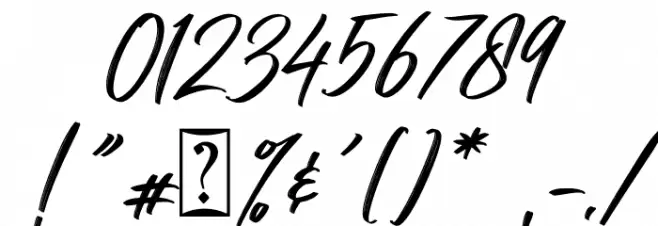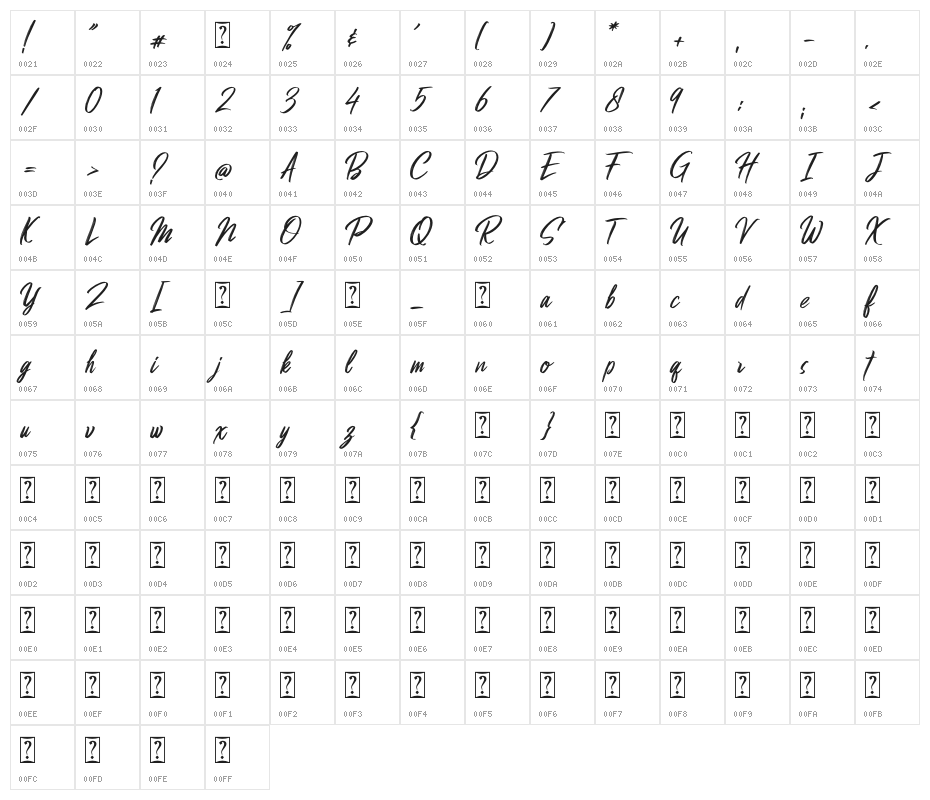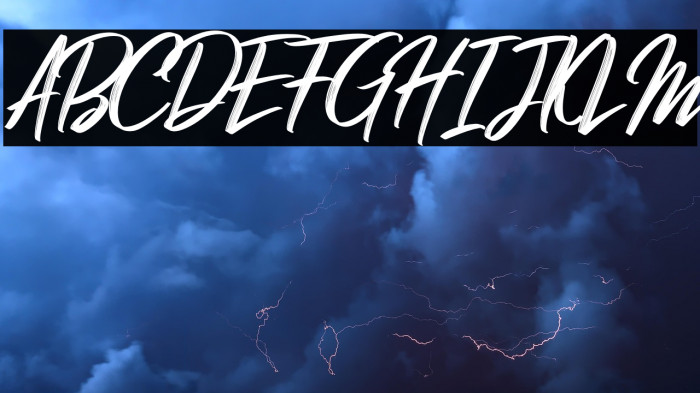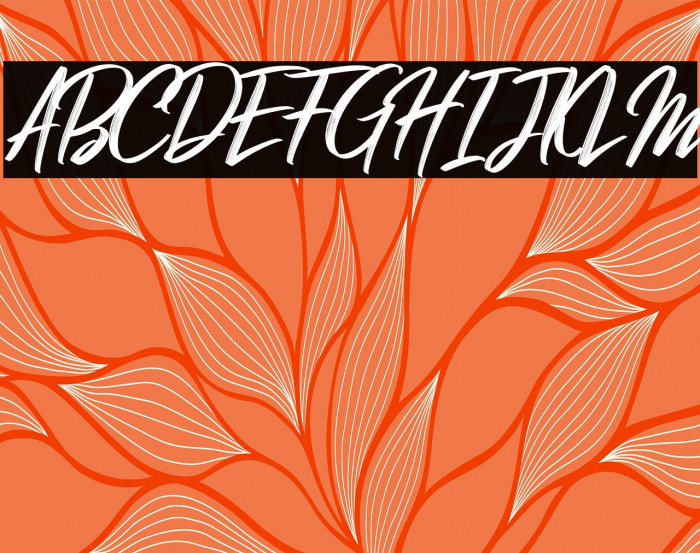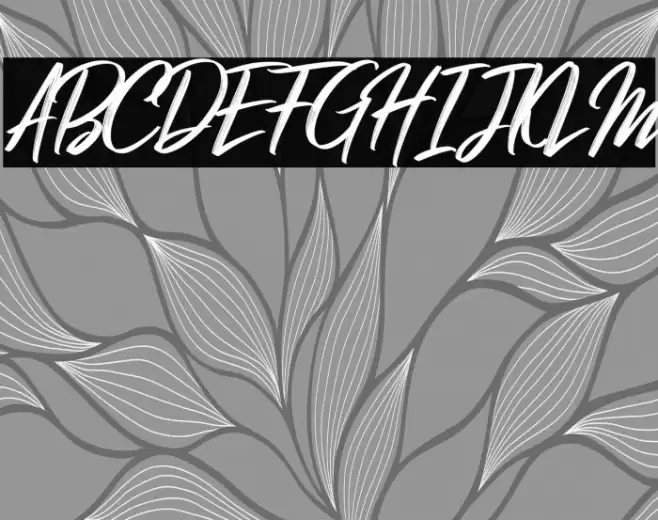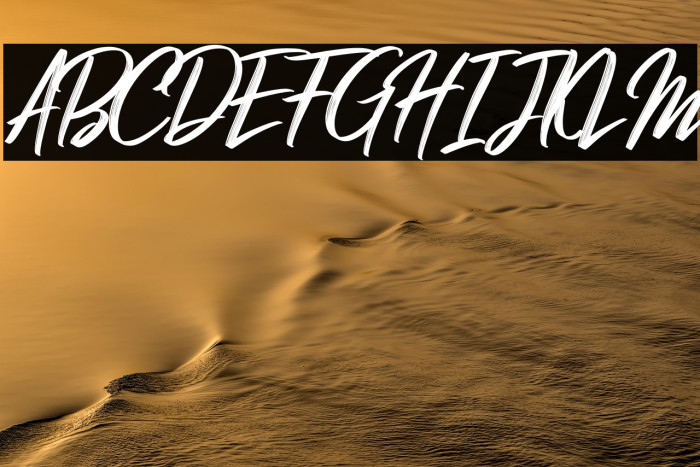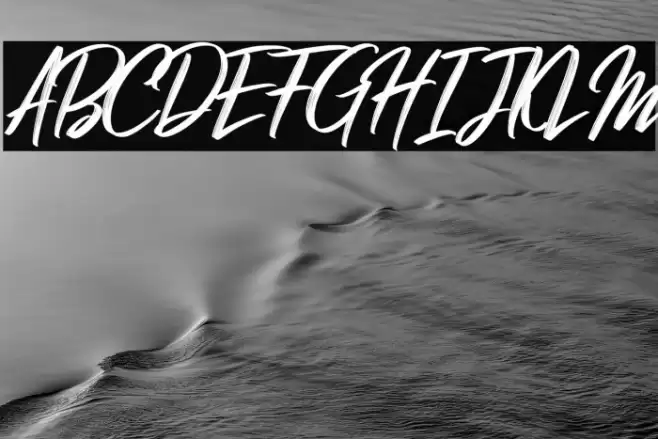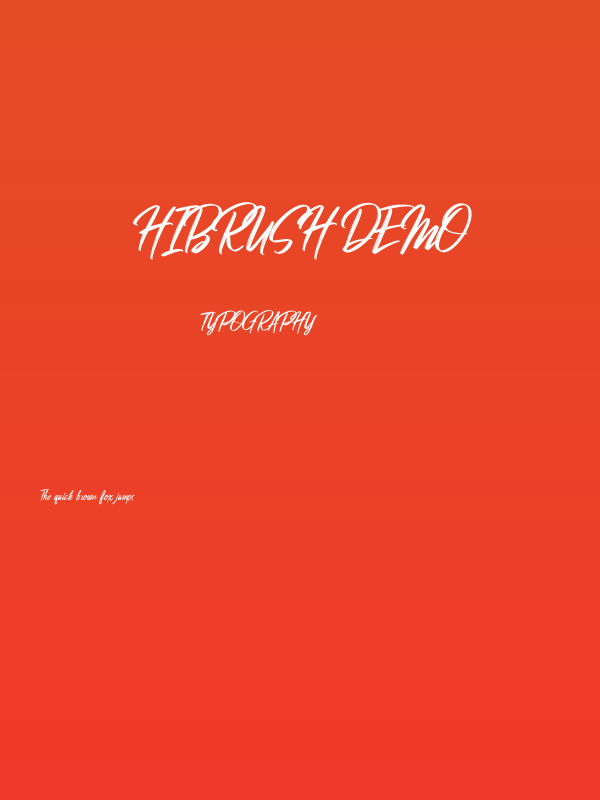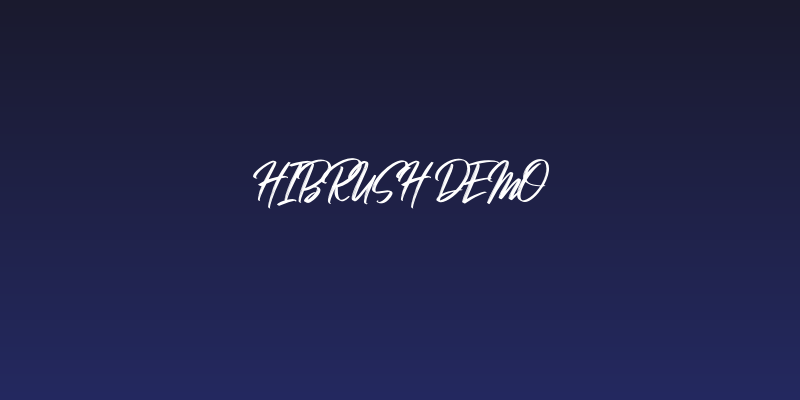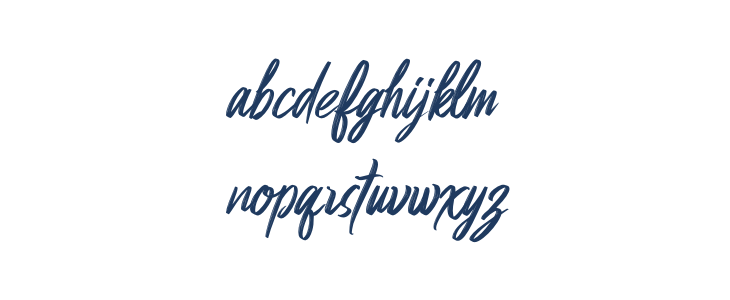
Hibrush DEMO Font
Hibrush DEMO Description
This font features a dynamic and expressive script style, characterized by its fluid, cursive strokes that mimic the natural flow of handwriting. The letters are connected in a seamless manner, giving it a cohesive and elegant appearance. The uppercase letters are bold and prominent, while the lowercase letters maintain a consistent rhythm and flow. The numerals and special characters are designed to match the overall aesthetic, ensuring uniformity across all elements. This font exudes a sense of creativity and personal touch, making it ideal for projects that require a handwritten or artistic feel.